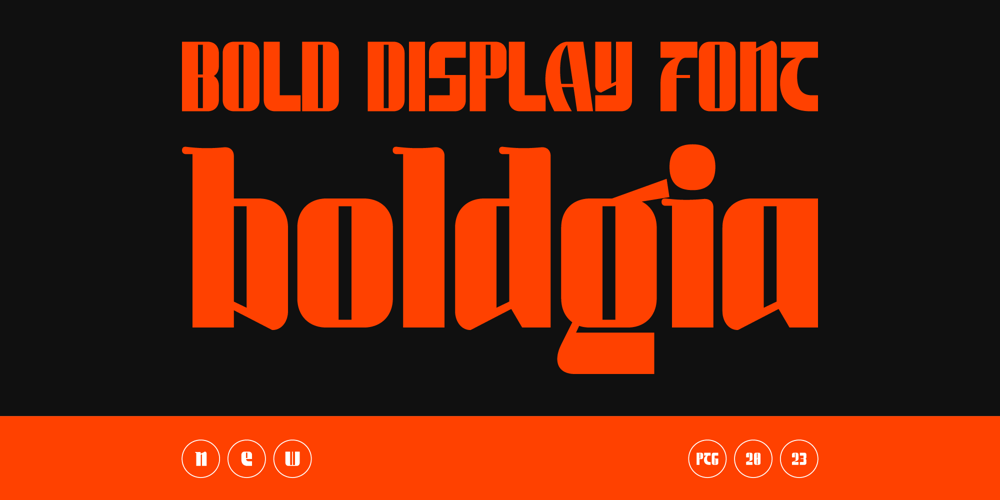
Boldgia
Boldgia font
Boldgia Font Family was designed by Mirdhatillah and published by Portograph Studio. Boldgia contains 1 styles and family package options. This typeface has a unique and attractive appearance. Boldgia looks great when combined with solid character fonts. For branding projects, logos, wedding designs, social media posts, advertisements, product packaging, product designs, labels, photography, watermarks, invitations, stationery, and anything requiring handwritten taste, Boldgia is perfect.What’s Included : Ton of glyphs Ligature & Alternate Works on PC & Mac Simple installations Accessible in Adobe Illustrator, Adobe Photoshop, Adobe InDesign, even work on Microsoft Word. PUA Encoded Characters – Fully accessible without additional design software. Fonts include multilingual support for; Afrikaans, Albanian, Czech, Danish, Dutch, English, Estonian, Finnish, French, German, Hungarian, Italian, Latvian, Lithuanian, Norwegian, Polish, Portuguese, Slovak, Slovenian, Spanish, Swedish. Your purchase has been received! Thank you!